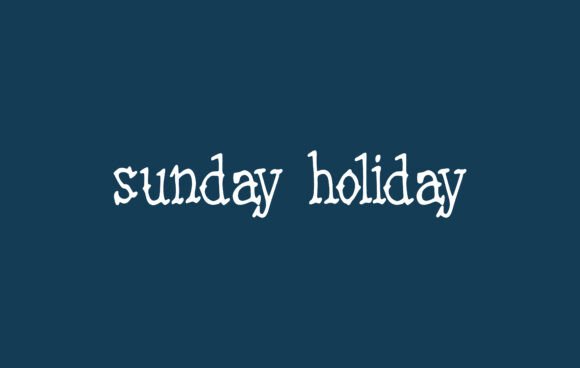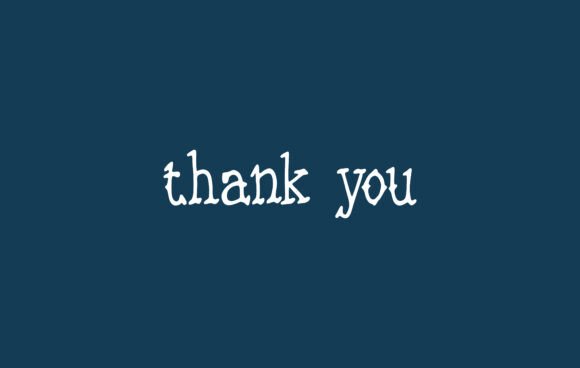
Introduction to Rithmycs Font
As a designer, have you ever been in a rush to meet a project deadline, only to find yourself stuck on choosing the perfect font? The perfect font can make or break a design, and that’s exactly why we’re excited to introduce you to the Rithmycs Font. This stunning, authentic handwritten font is a game-changer for any creative project.
Whether you’re working on a high-end branding campaign or a romantic wedding invitation, the Rithmycs Font is sure to add a touch of elegance and sophistication to your design. With its legible and versatile style, this font is perfect for titles, body text, and even social media graphics. Plus, it’s a free download, making it an invaluable resource for any designer looking to elevate their designs to the next level.
Key Features of Rithmycs Font
- Rithmycs Font is a versatile design resource, ideal for use in a variety of creative projects, including graphic design, digital art, and typography.
Honest Review: Rithmycs Font
- High-quality design: The Rithmycs Font is crisp and clean, making it perfect for creative projects where readability is key.
- Great for headings: The Rithmycs Font is ideal for headings and titles, adding a touch of sophistication to any design.
- Not ideal for body text: While the font is great for headings, it may not be the best choice for body text due to its size and style.
- Limited character set: The Rithmycs Font has a relatively small character set, which may limit its use in certain creative projects.
Overall, the Rithmycs Font is a valuable design resource that can elevate your creative project. While it may have some limitations, its high quality and transparent background make it a great addition to any designer’s toolkit.
To get the most out of the Rithmycs Font, experiment with different font sizes, colors, and styles to create unique and eye-catching designs. Common use cases include creating logos, graphics, and visual elements for websites, social media, and marketing materials.